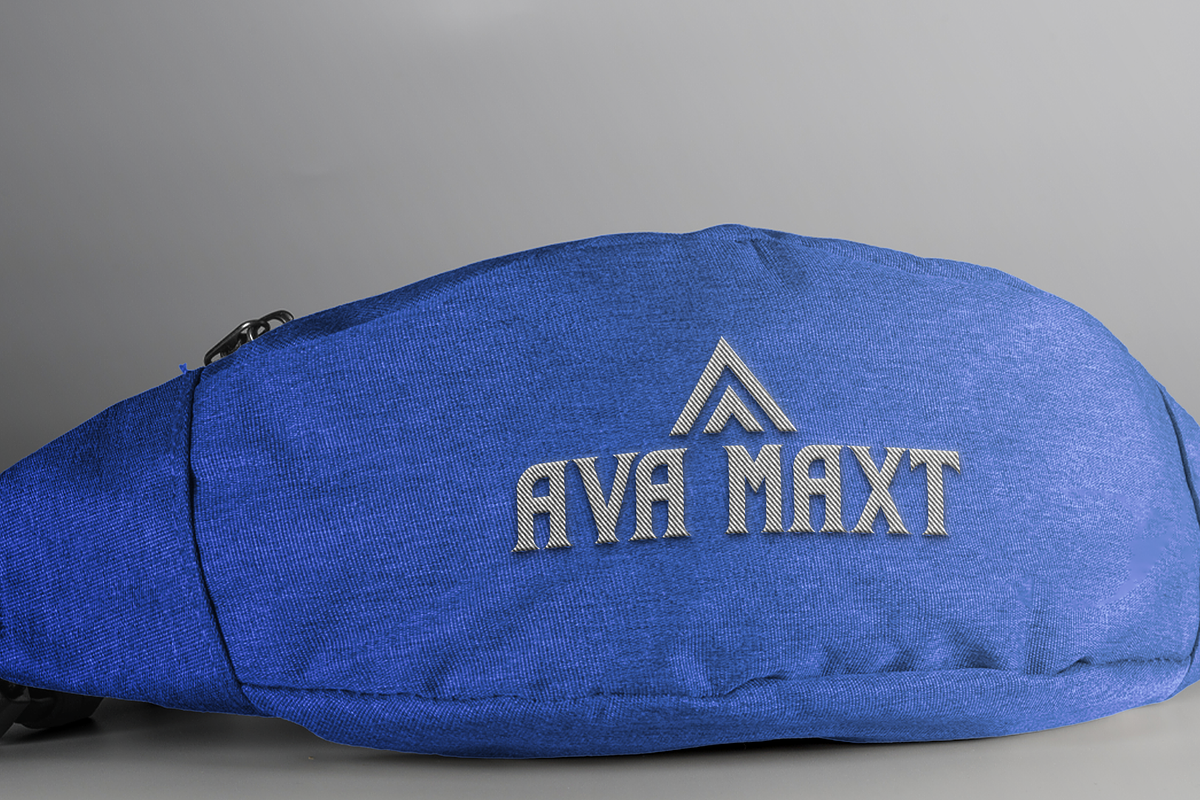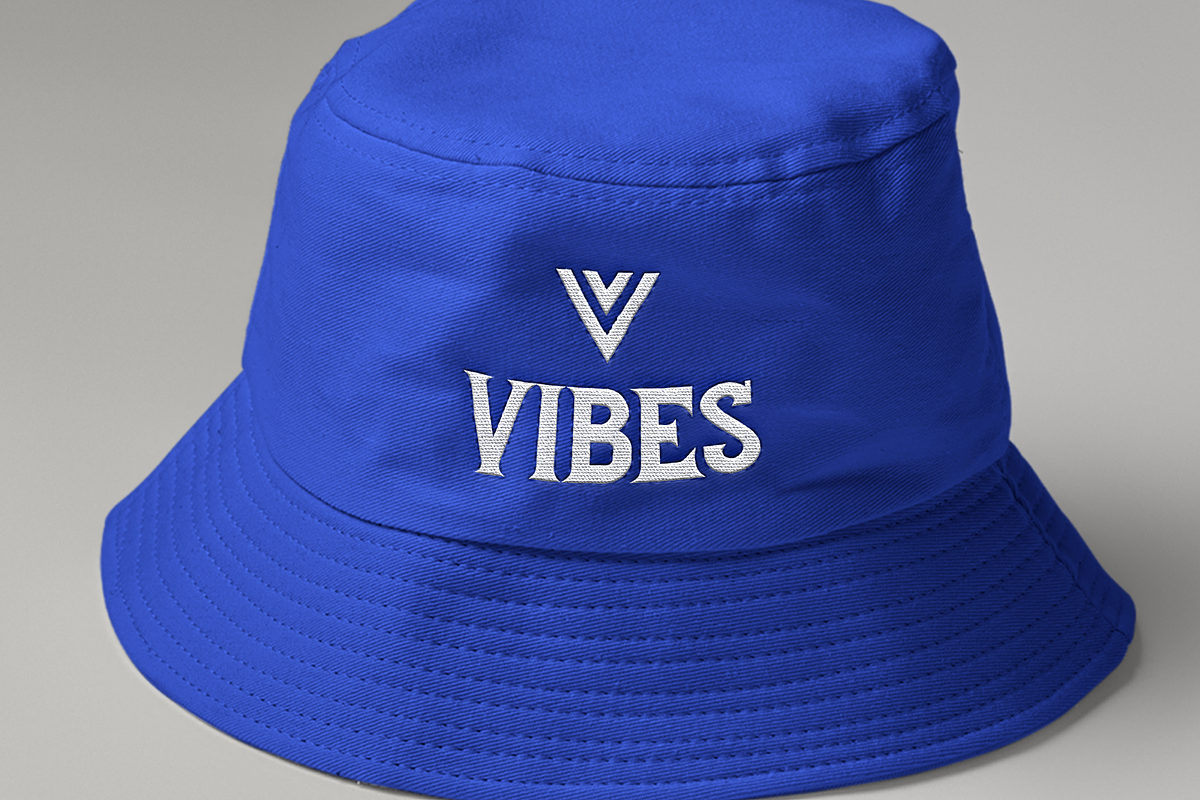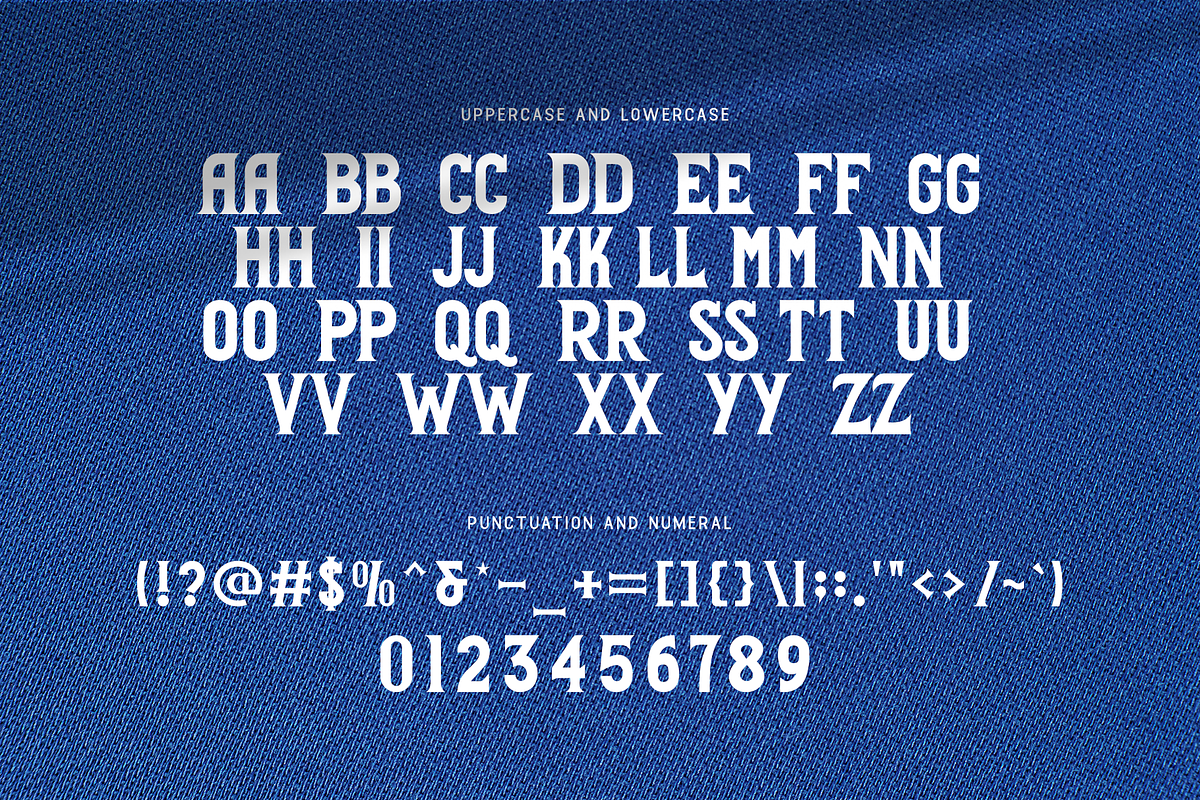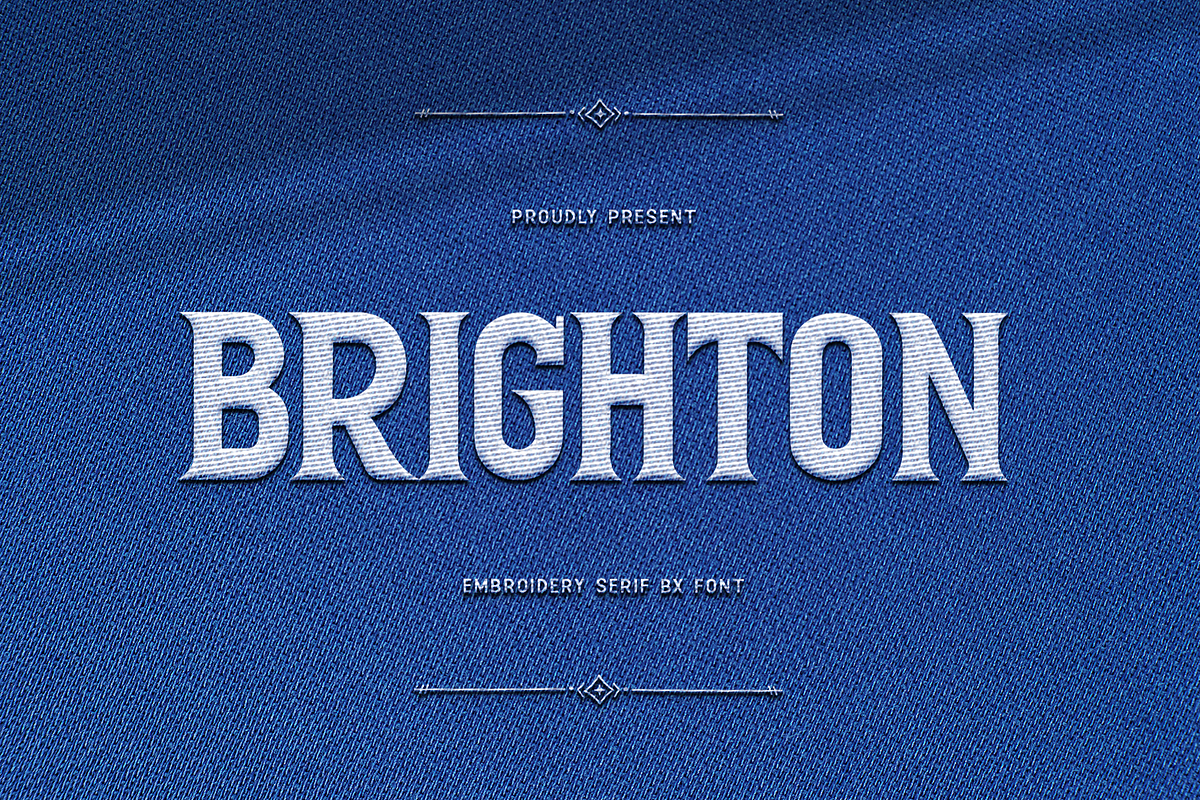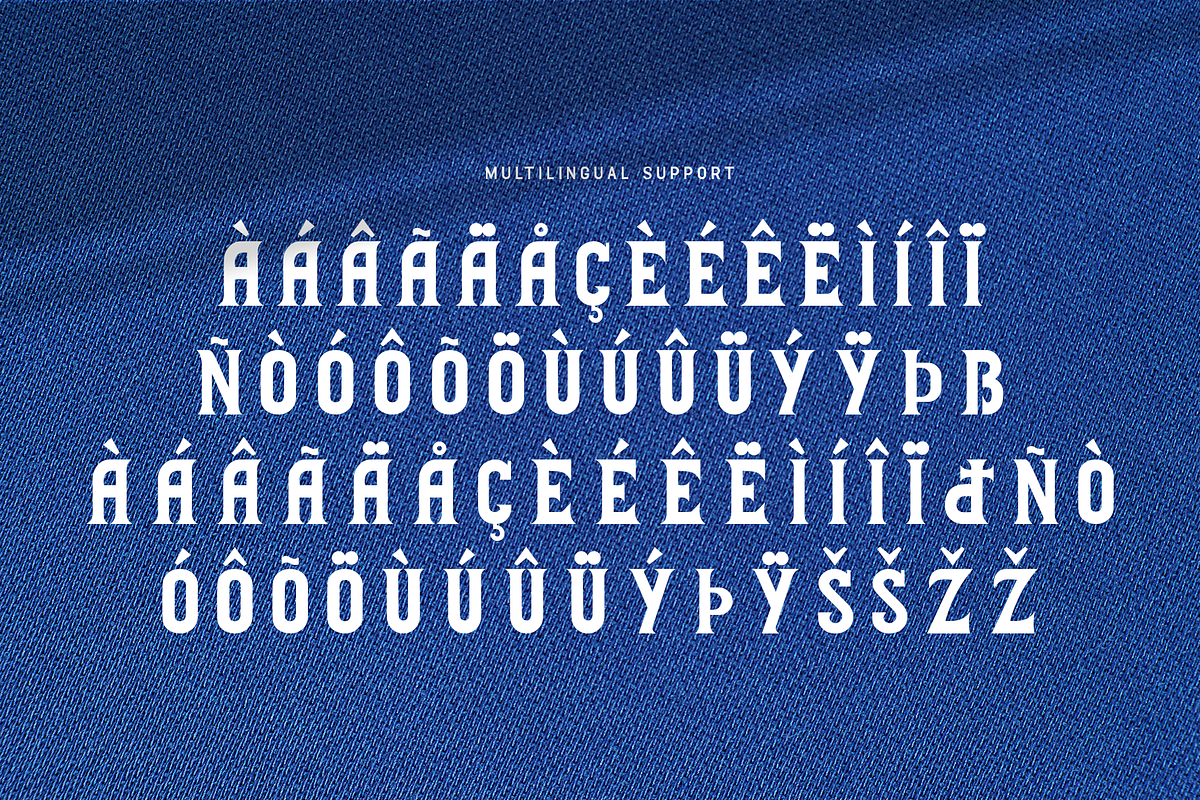
Brighton - Embroidery Serif BX Font
Introducing "Brighton," an embroidery serif BX font that brings timeless elegance to your embroidery projects. Combining the refined look of serif typefaces with the intricate detail of embroidered stitches, Brighton is perfect for those looking to add a sophisticated touch to their designs.
Expertly crafted, Brighton is ideal for a variety of creative applications including apparel design, home decor, personalized gifts, and more. Each character is designed with precise stitching details that mimic the beauty of hand-embroidered letters, adding a unique and elegant texture to your work.
The "Brighton" font includes a comprehensive set of uppercase and lowercase letters, numbers, and punctuation marks, offering versatility and flexibility for all your embroidery needs. Whether you’re creating custom garments or elegant home accessories, Brighton enhances your projects with its sophisticated embroidery-inspired typography.
Elevate your designs with the refined and timeless elegance of Brighton embroidery serif BX font.